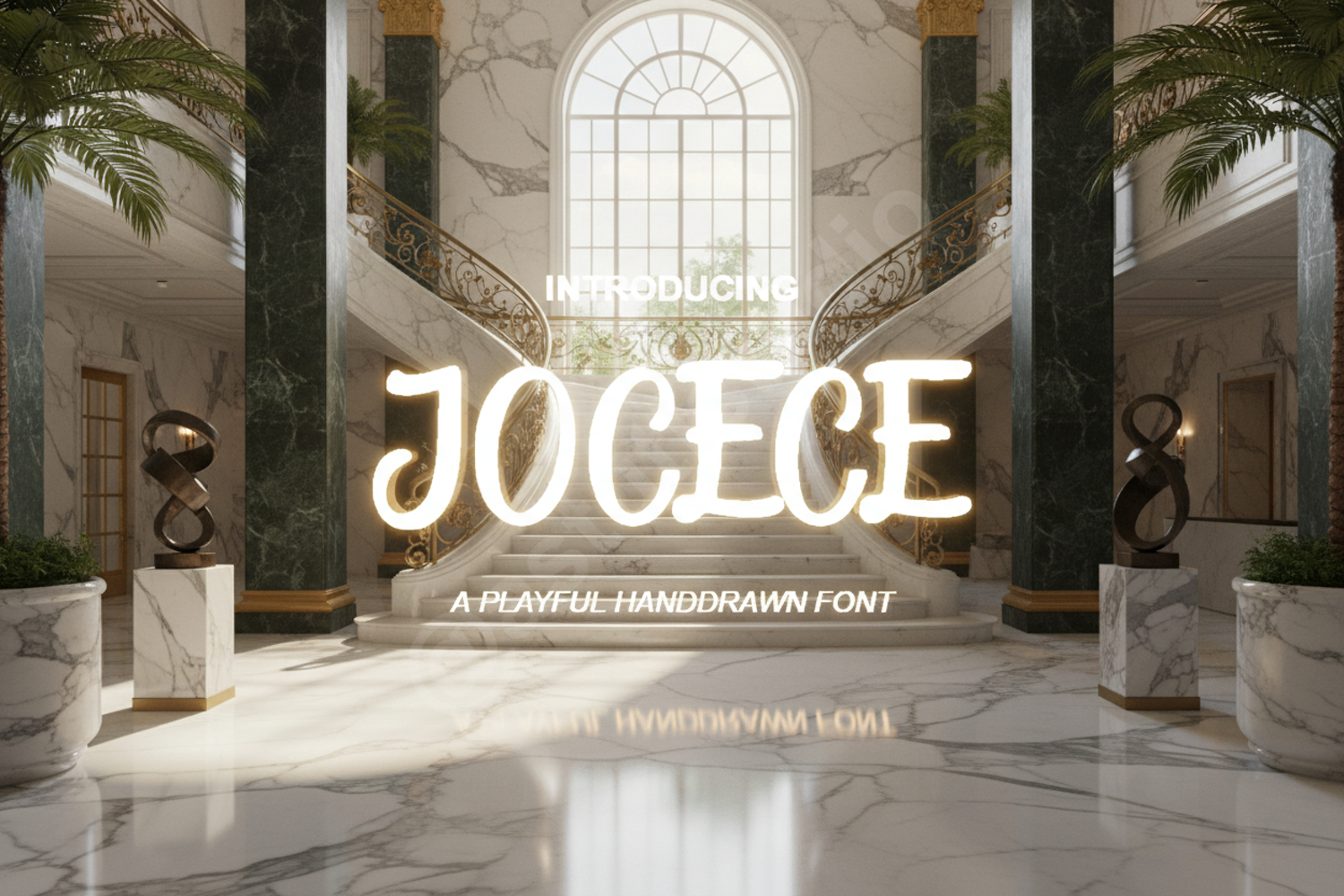
Jocece - Modern Elegant Serif Font
Jocece
Elevate your creative projects with Jocece, a premium serif typeface that seamlessly blends classic sophistication with modern aesthetics. Designed with precision and a keen eye for detail, Jocece offers a timeless appeal that ensures your designs stand out with elegance and professional flair. Whether you are working on high-end branding or delicate stationery, this font provides the versatility needed for exceptional results.
- Branding and Identity: Perfect for luxury logos, business cards, and corporate stationery.
- Editorial Design: Ideal for magazine layouts, book covers, and impactful headers.
- Wedding and Events: Create stunning invitations, menus, and elegant place cards.
- Social Media: Enhance your digital presence with stylish quotes and promotional graphics.
- Packaging Design: Add a touch of high-end quality to product labels and retail boxes.